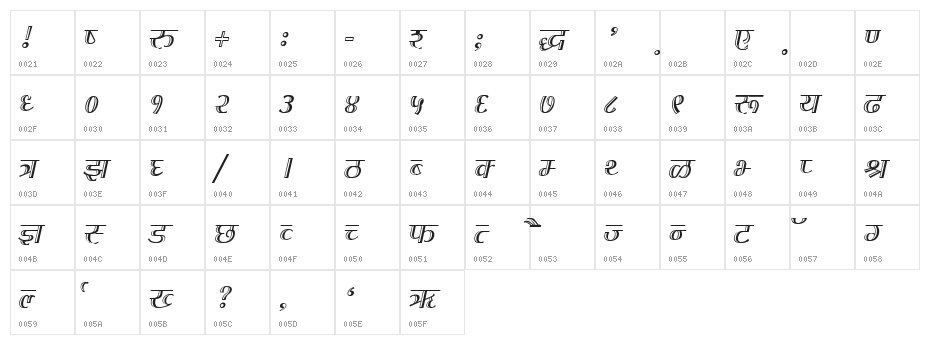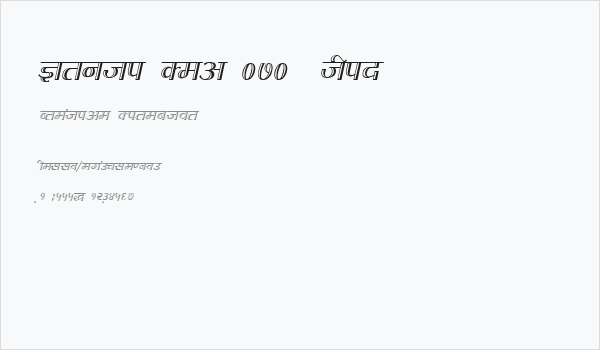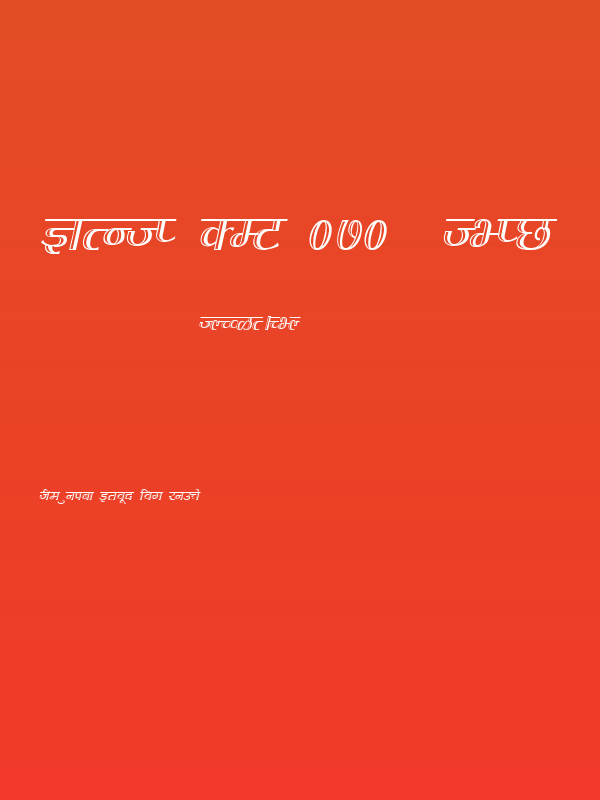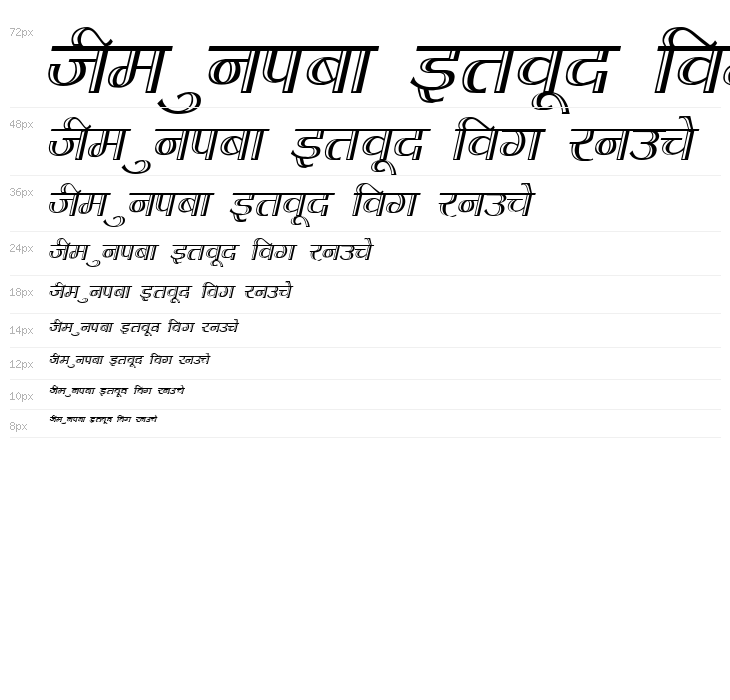
Kruti Dev 070 Thin Font
Kruti Dev 070 Thin Description
This font features a distinctive Devanagari script style with a thin and elegant appearance. The characters are designed with a slight slant, giving them a dynamic and flowing look. The strokes are consistent and smooth, providing a clean and polished finish. The font maintains a traditional feel while incorporating modern elements, making it versatile for various uses. The spacing between characters is balanced, ensuring readability while preserving the aesthetic appeal. This font is particularly suitable for formal and cultural contexts, where a touch of sophistication is desired.
| Use Case | Headlines, Artistic projects, Cultural publications |
| Proposed Projects | Ideal for cultural publications, formal invitations, and artistic projects requiring a traditional yet modern touch. |